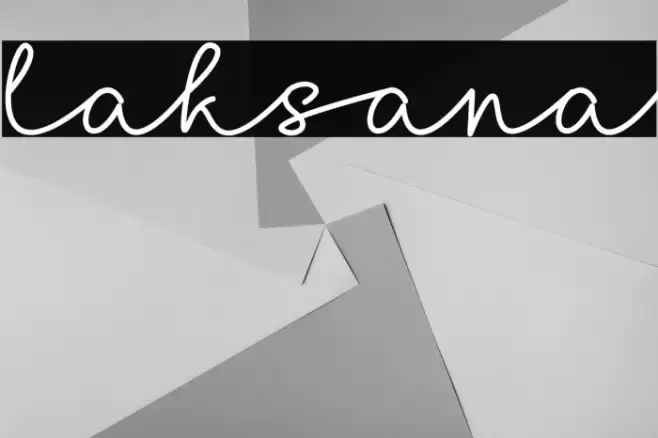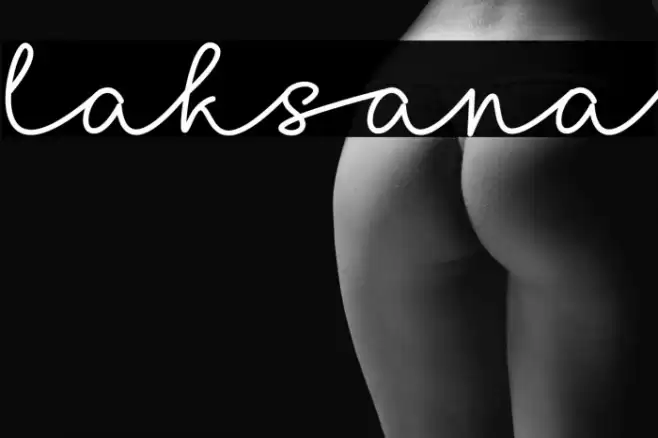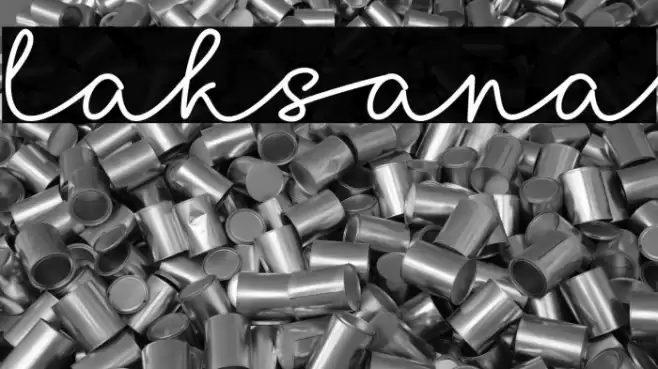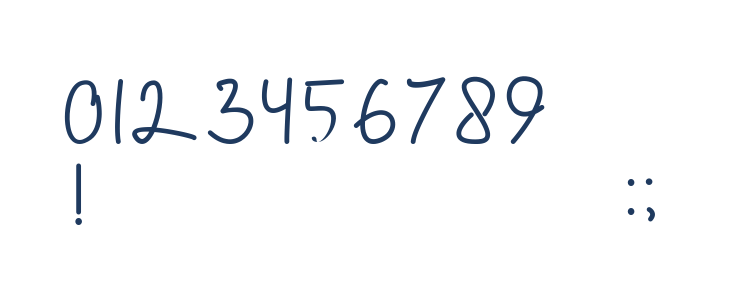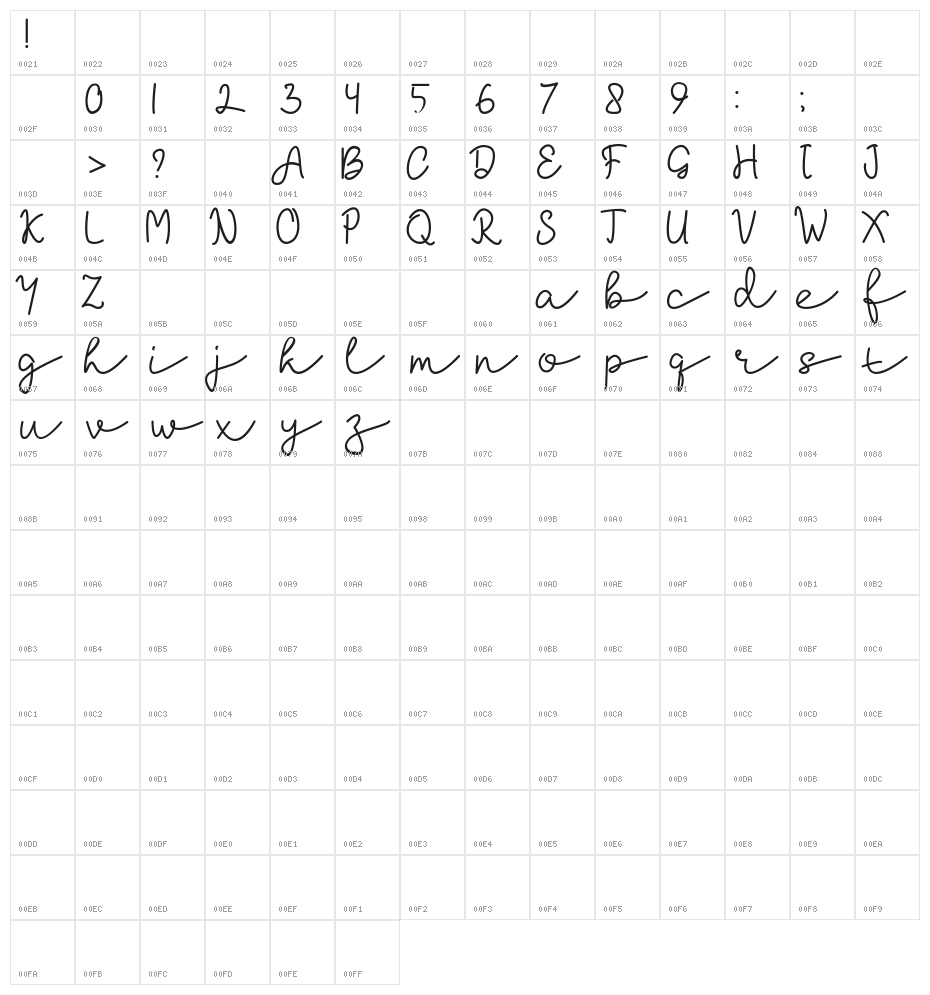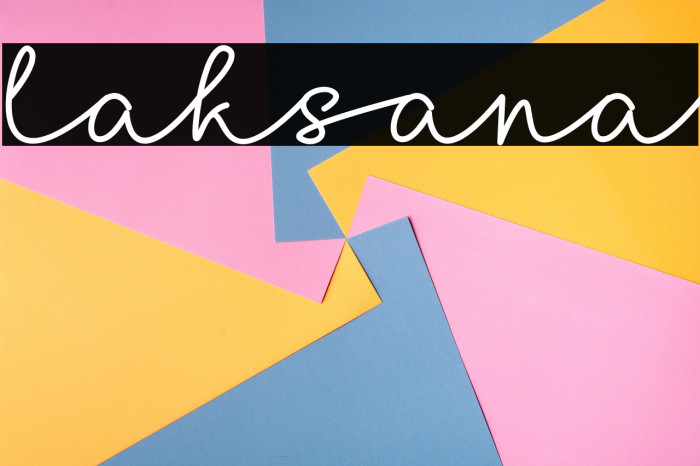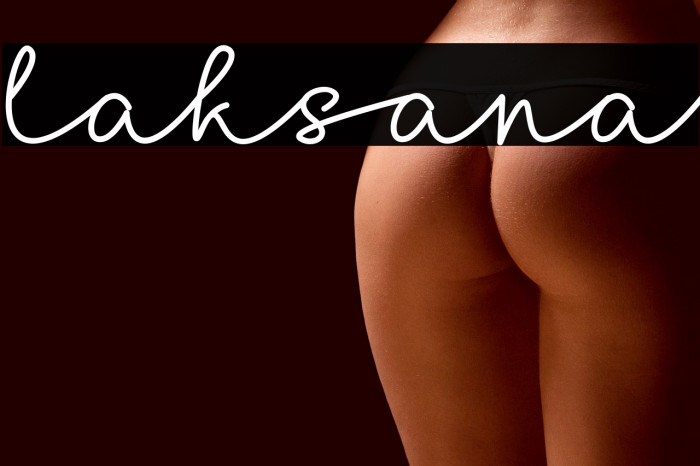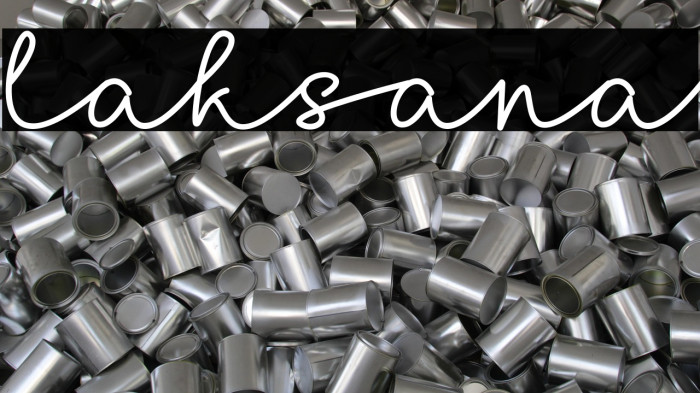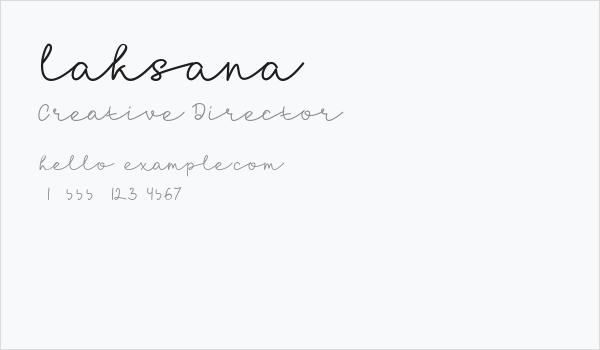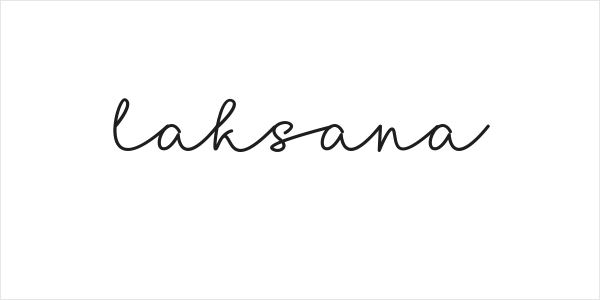
laksana Font
laksana Description
This font features a playful and casual handwritten style, characterized by its fluid and slightly irregular strokes. The uppercase letters are bold and expressive, with a slight slant that adds to the dynamic feel. The lowercase letters maintain a consistent flow, connecting smoothly in a cursive manner. Numbers are rounded and maintain the same playful aesthetic, making them easily readable. The special characters complement the overall style, enhancing the font's versatility. This font exudes a friendly and approachable vibe, making it suitable for a variety of creative projects.
A playful, casual handwritten font with fluid, expressive strokes from Regular fonts.
- Proposed Projects: Ideal for greeting cards, invitations, personal branding, and creative social media graphics.
- Overall Style: Casual, Playful
- Use Case: Logos, Headlines, Invitations